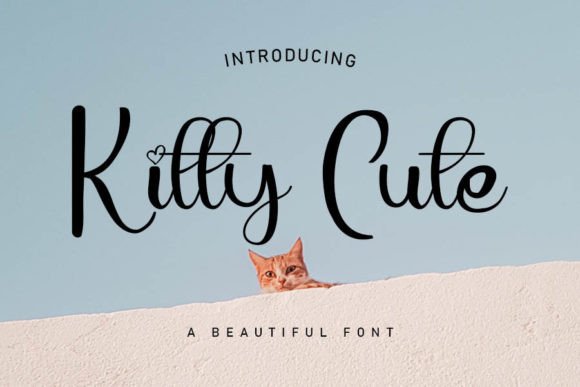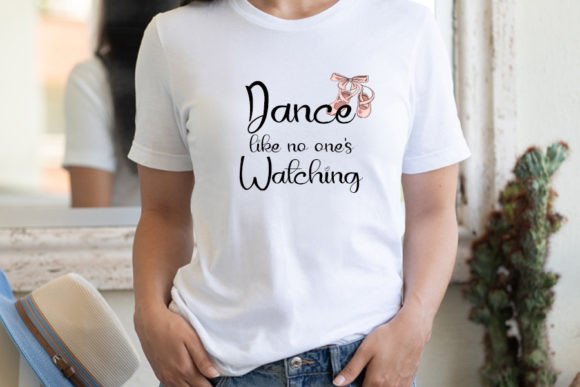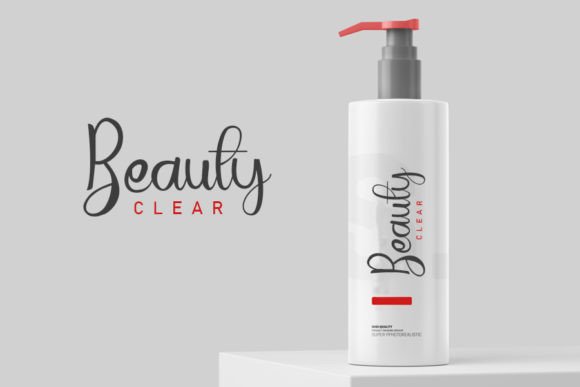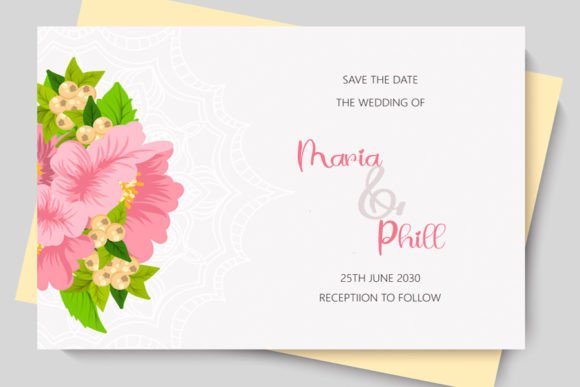
Kitty Cute Font: A Playful Handwritten Script for DIY & Crafts
About the Kitty Cute Font
Crafted with precision, the Kitty Cute Font is ready to bring your ideas to life. Kitty Cute is a fancy, cheerful, and cursive handwritten font. Carefully and neatly designed, this typeface will make your creation more assertive and attractive. It is perfect for headlines, logos, crafts, and all kinds of apparel and merch projects.
Kitty Cute’s playful, yet refined, cursive style shines in headlines, logos, and short, impactful text for branding and packaging. Its delicate nature makes it unsuitable for body copy or lengthy paragraphs; readability suffers at smaller sizes. Avoid using it in UI elements or situations requiring high legibility.
Consider pairing Kitty Cute with a clean sans-serif like Lato or Open Sans for a balanced contrast, or a geometric sans-serif like Montserrat for a more modern feel. For a touch of elegance, a subtle serif like Merriweather can complement its cursive charm.
The font projects a friendly, approachable personality, ideal for brands targeting a youthful or feminine demographic. Its charm works well for projects emphasizing fun, creativity, and lightheartedness.
Kitty Cute Font Usage Examples
Kitty Cute Font Example